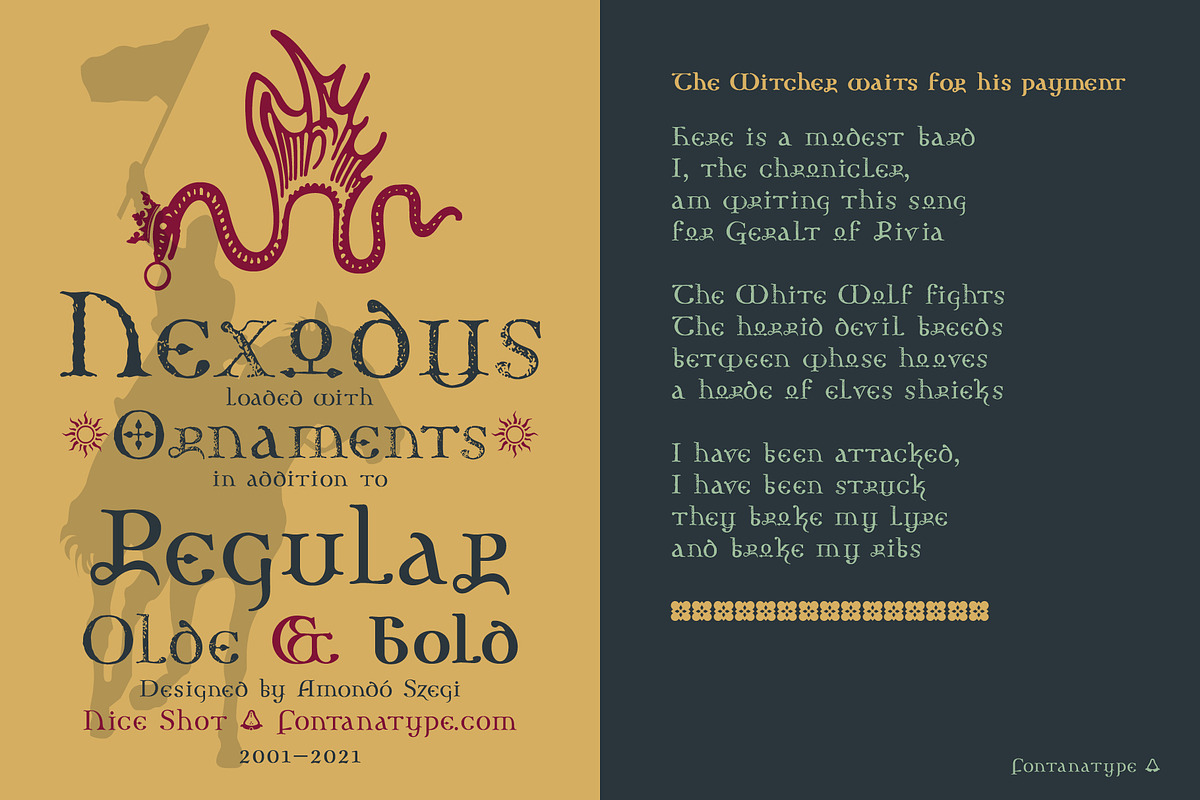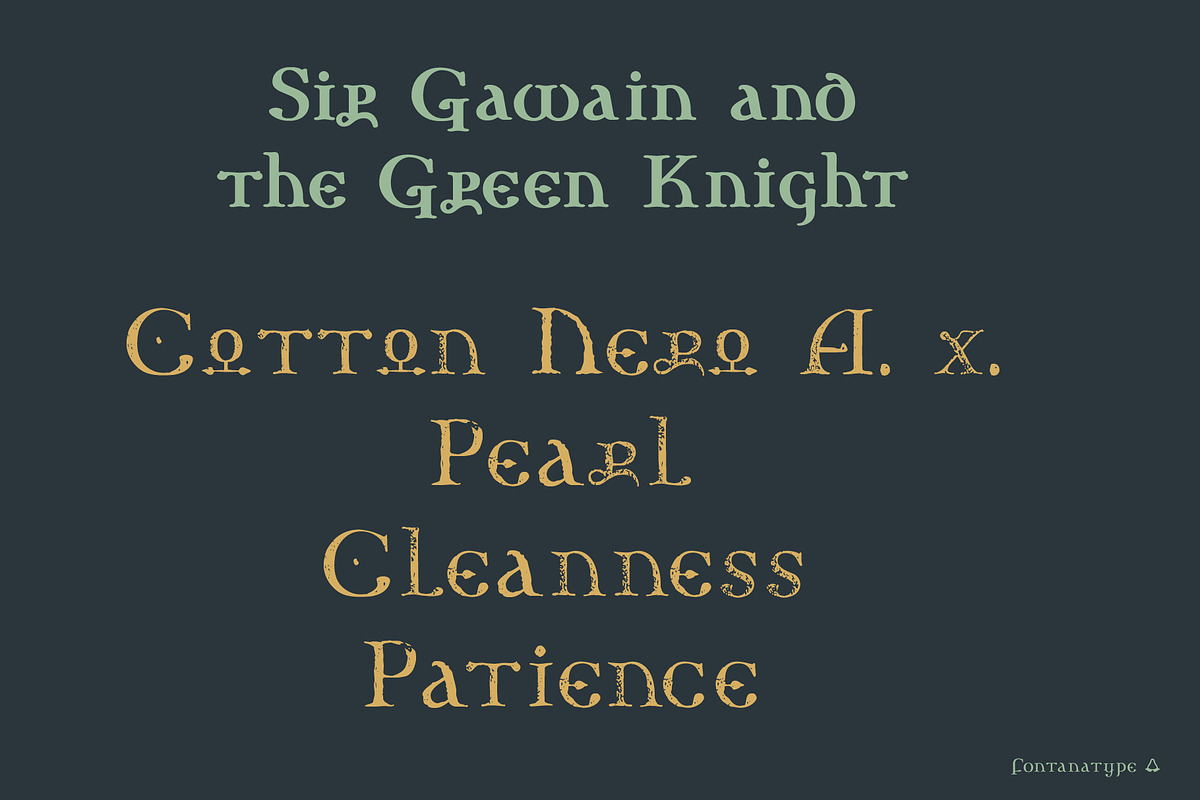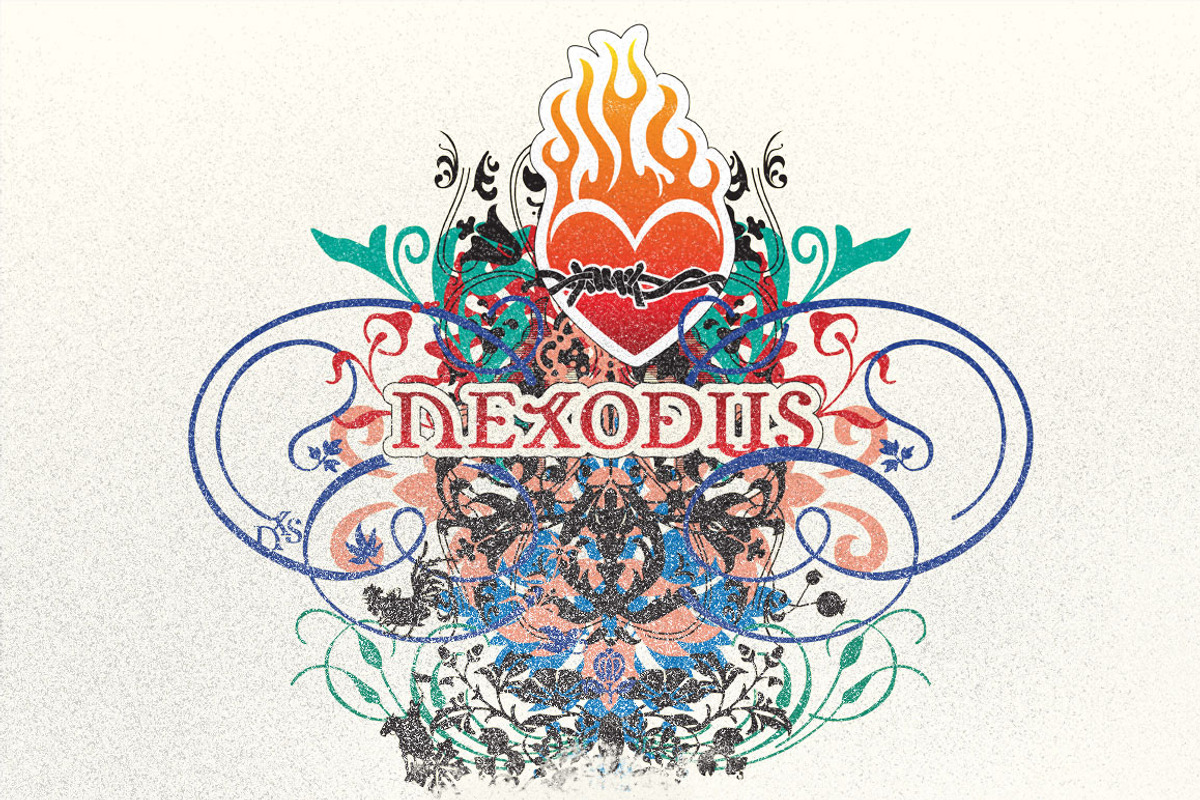
Nexodus
A lost alphabet, reforged.
A display typeface equal parts illuminated manuscript and gothic séance — sharp uncial curves, ligatures pulled from old grimoires, and a full Zodiac of glyphs hiding in the alternates. Born for fantasy branding, RPG titles, metal logos, and anything that wants to look like it was found, not designed.
Nexodus comes in Regular, Bold, and Olde — three takes on the same skeleton, from clean display weight to a rougher, manuscript-bred alternate set. Alongside the letterforms sits a dedicated Ornaments family: crosses, rosettes, skulls, zodiac signs, and dingbats enough to fill a margin of any cursed tome.
Twenty-five years after its first cut, Nexodus returns reforged — expanded Ornaments, new ligatures, sharper curves throughout.
The letters behind the letters
In 1686, the Hungarian punchcutter Miklós Kis — working in Amsterdam, already known for his Armenian types — cut a set of Georgian ecclesiastical letterforms on commission from King Archil of Imereti. Patrices from that work eventually passed into the hands of Johan Gabriel Sparwenfeld, a Swedish diplomat and scholar of Slavic languages with deep ties to Moscow. A 1705 specimen sheet printed in Stockholm — preserved in the Swedish Royal Library — shows three sizes of these Georgian church types, ordered, as the record puts it, “chez Kiss.”
Three centuries later, those rounded, manuscript-born forms became the seed of Xodus (2001, T-26) — later reborn as Nexodus, once named the best Halloween font ever made by HOW magazine. Now, reforged again: expanded Ornaments, new ligatures, sharper curves throughout.